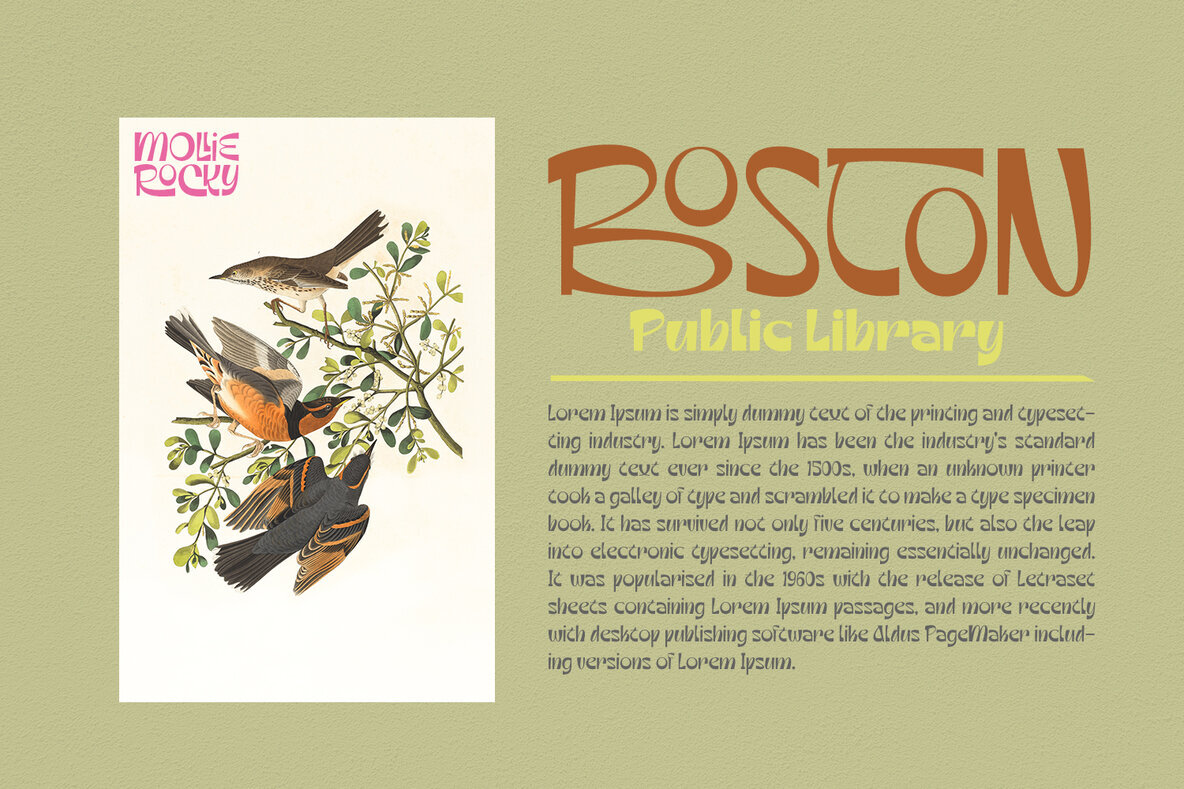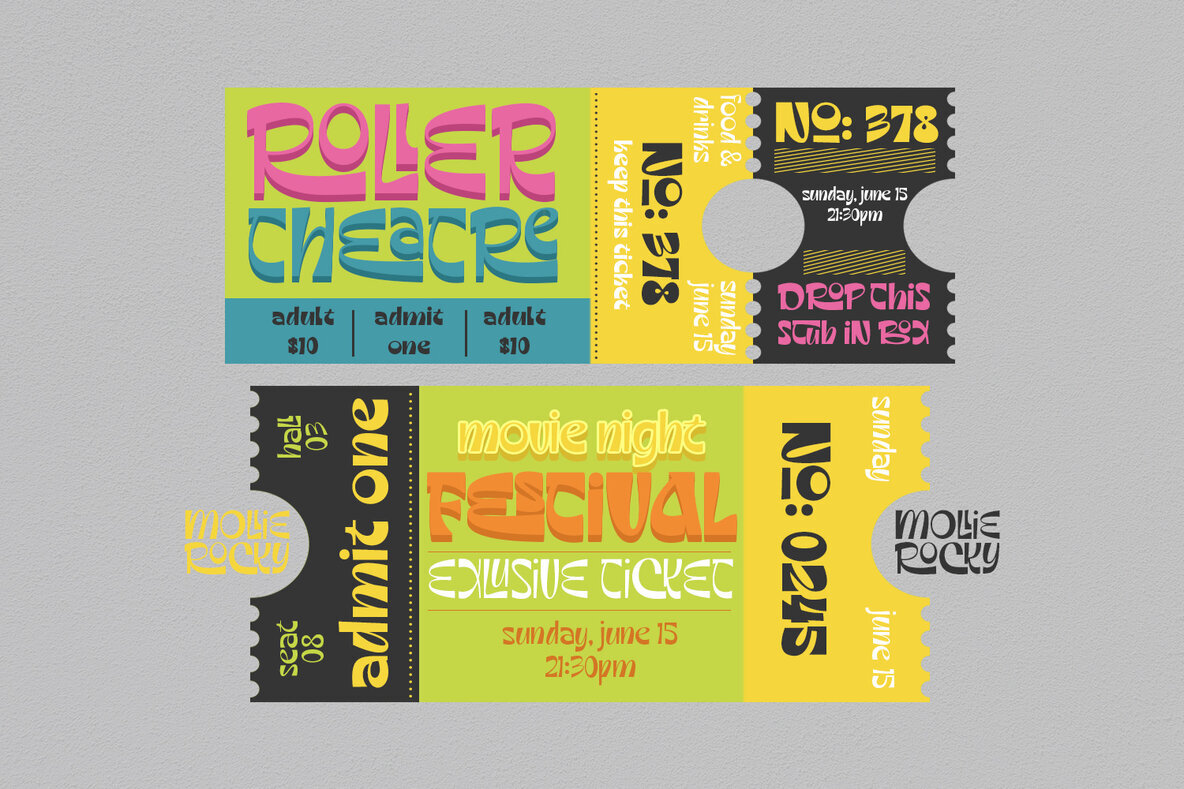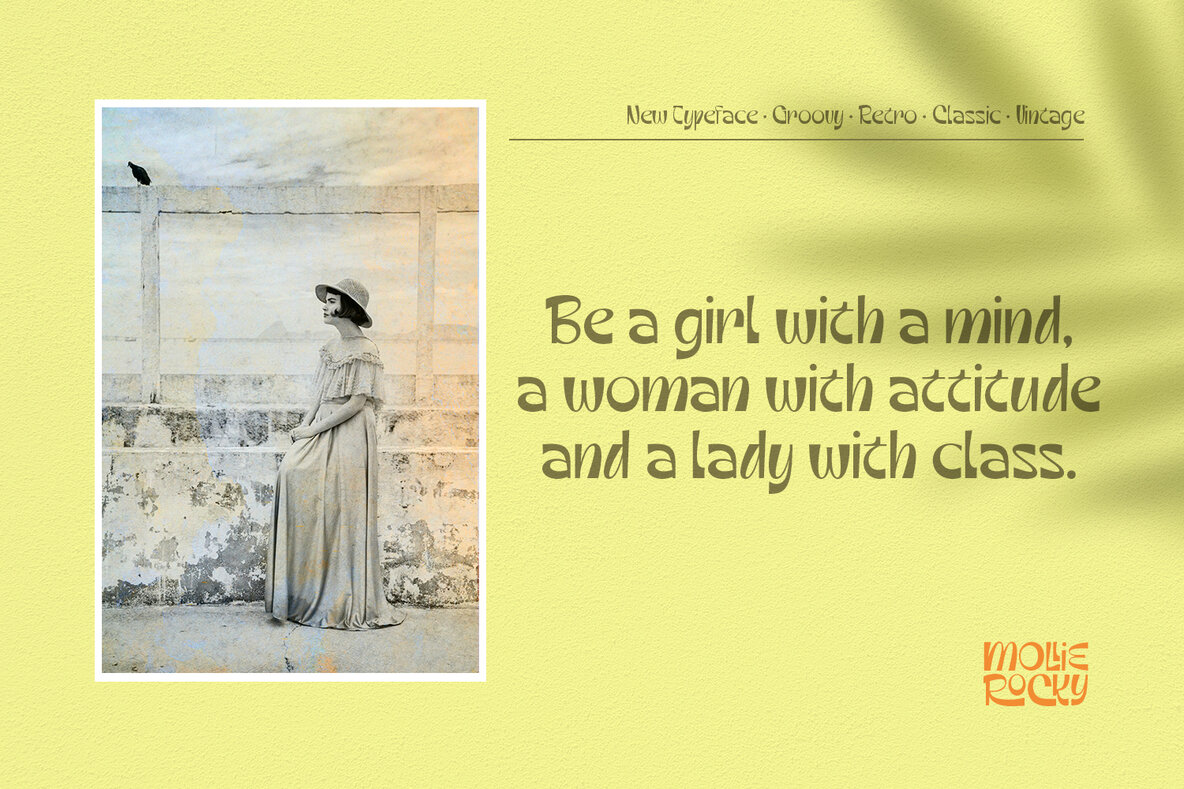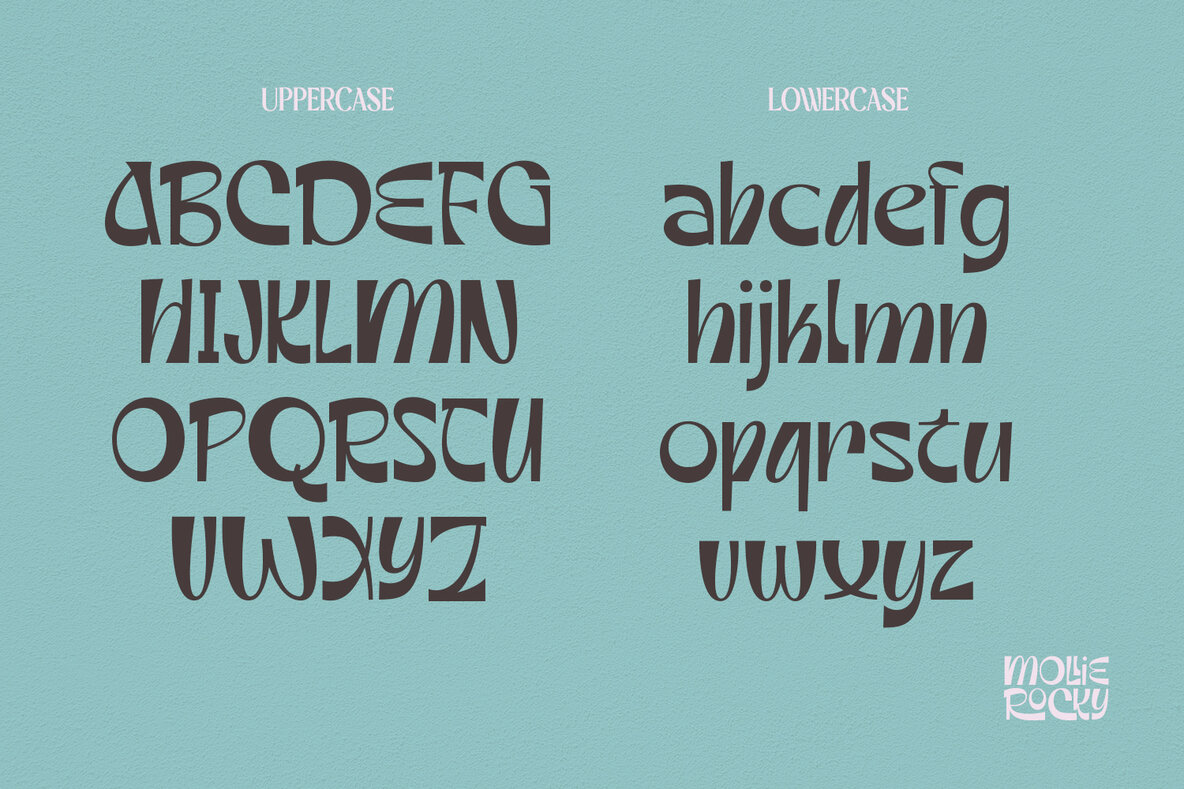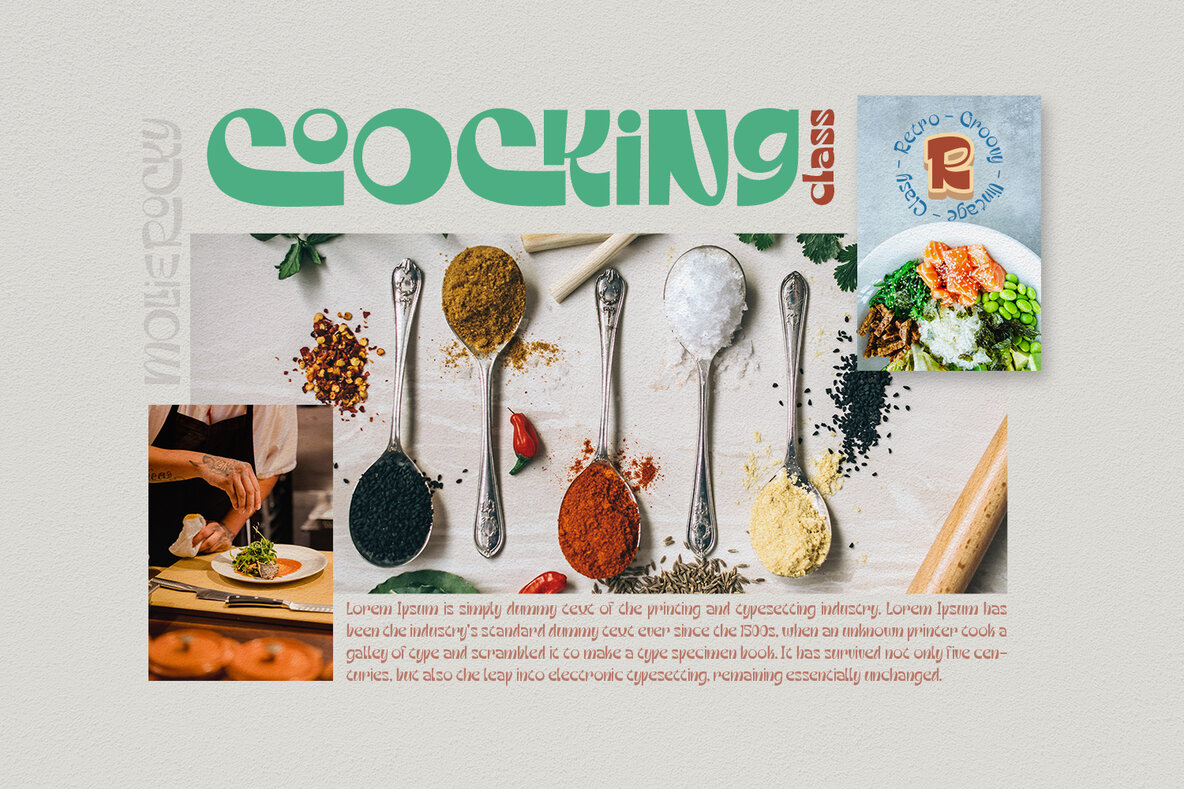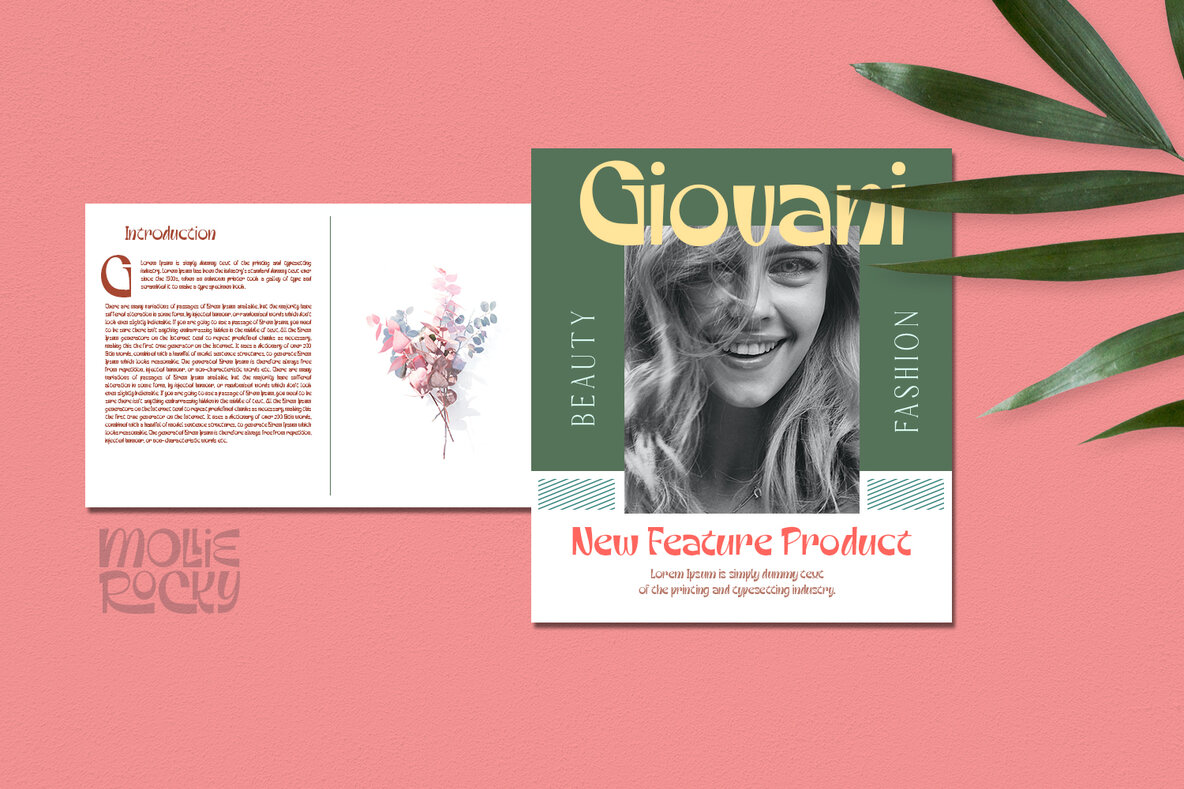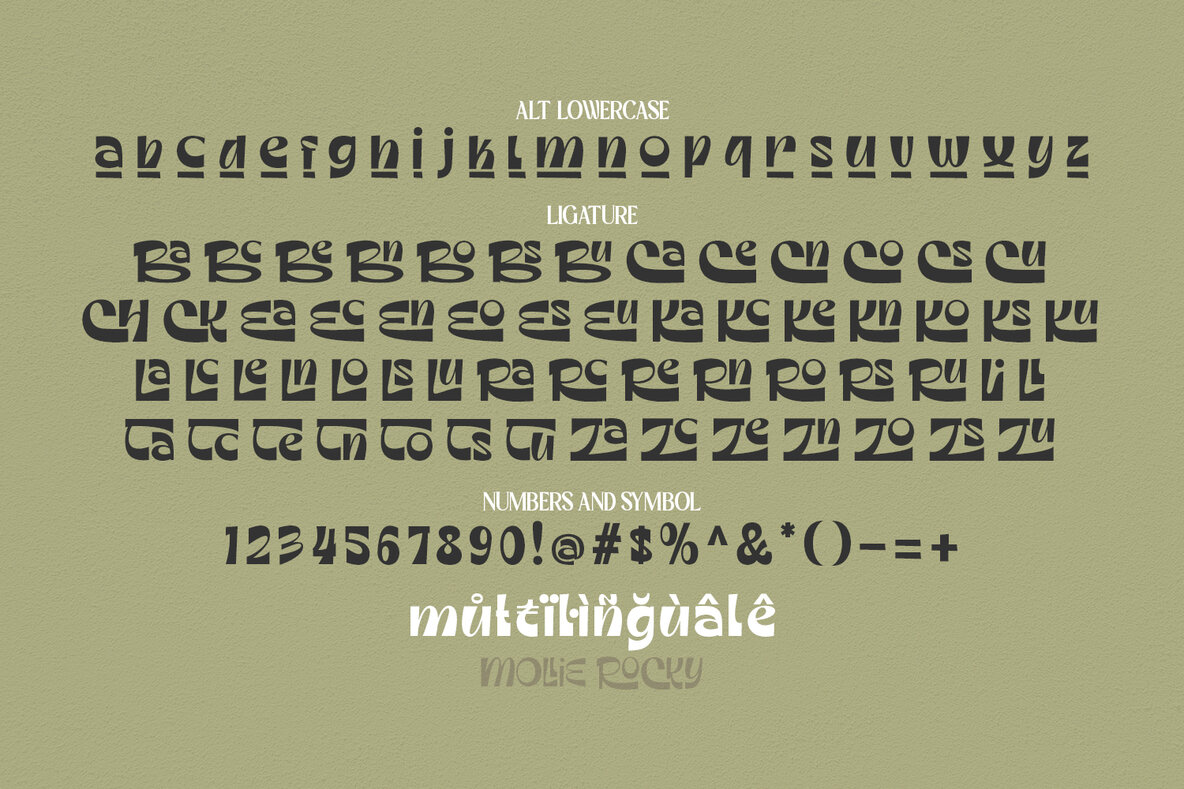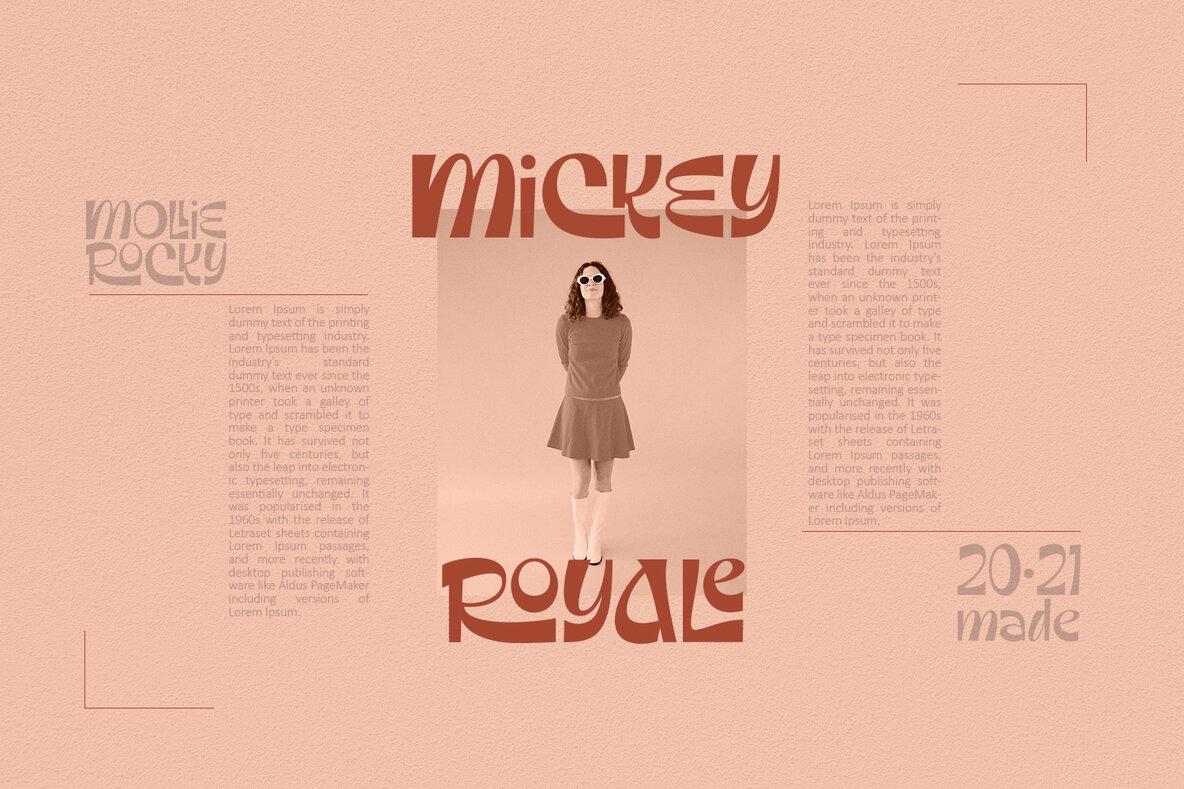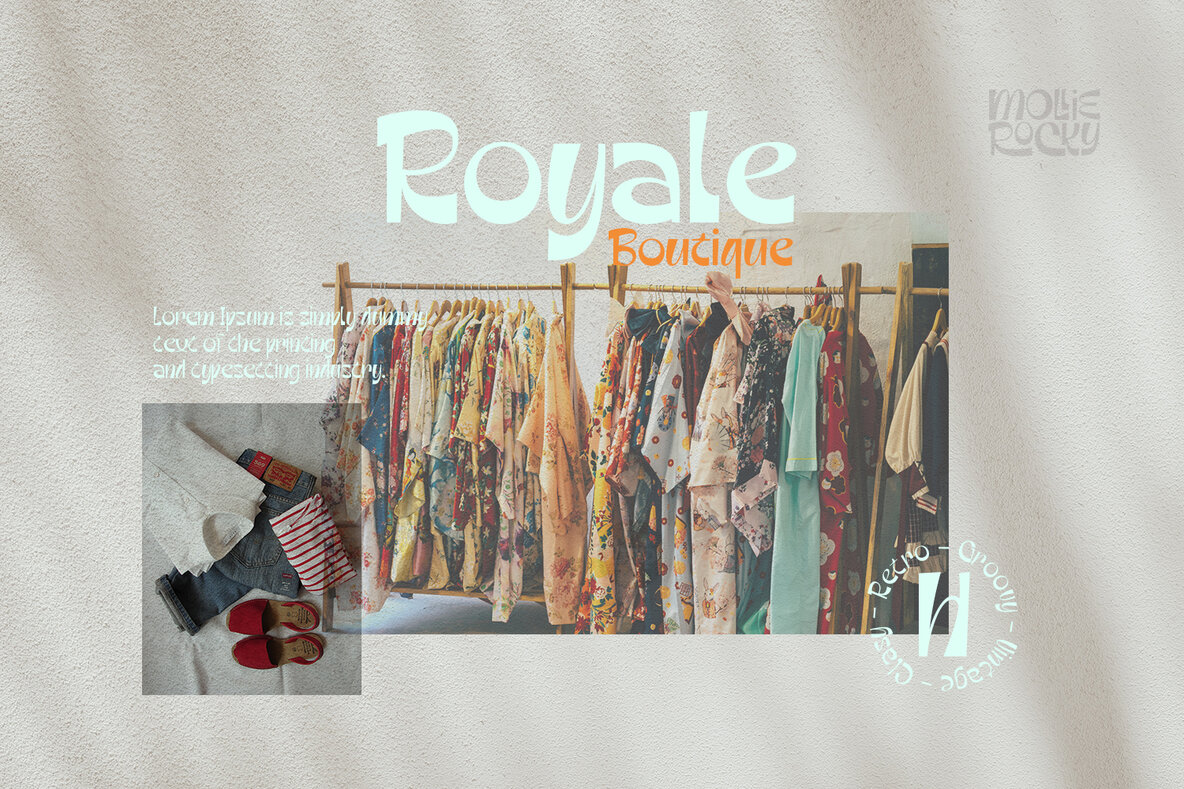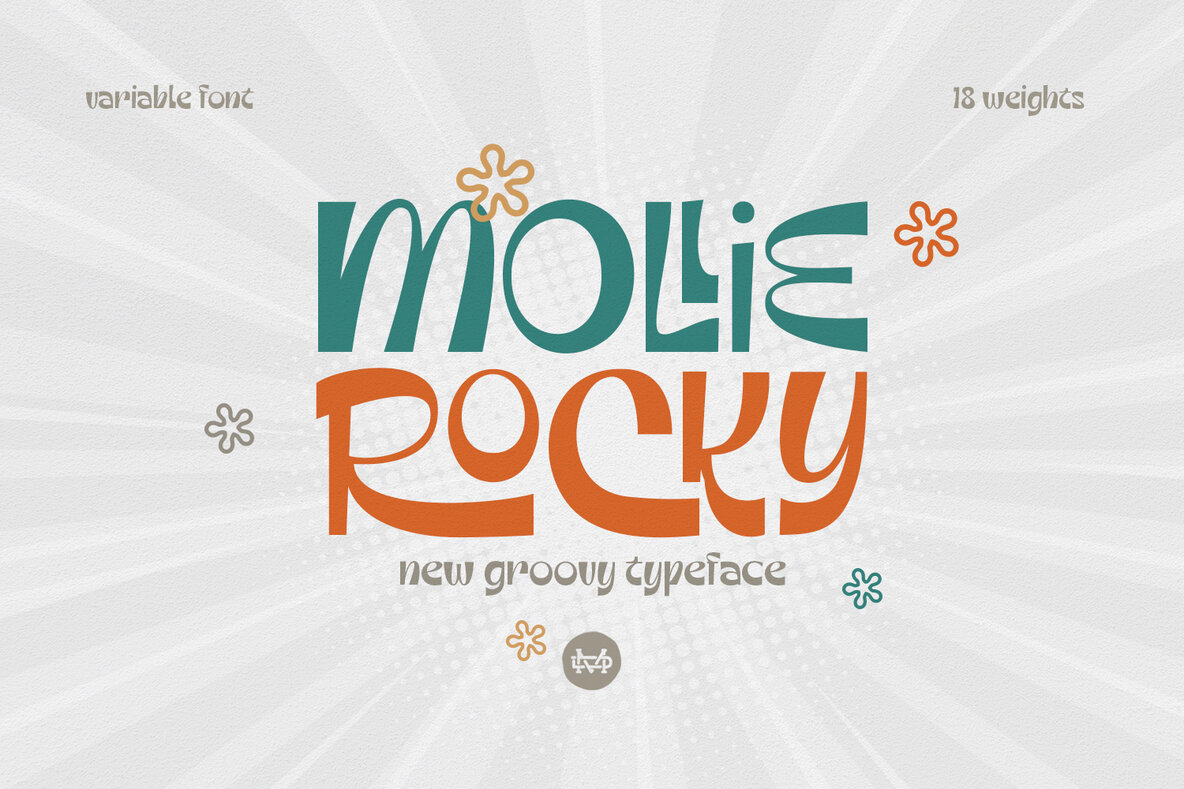
Mollie Rocky Font
Mollie Rocky is a dynamic, groovy font with one-of-a kind retro typography designs. This family typeface has crisp letter forms and stylish thin to thick stems - making it the perfect choice for any classic design need!
Feature:
- 18 Weights
- Number & Symbol
- International Glyphs
- Alternative & Ligatures